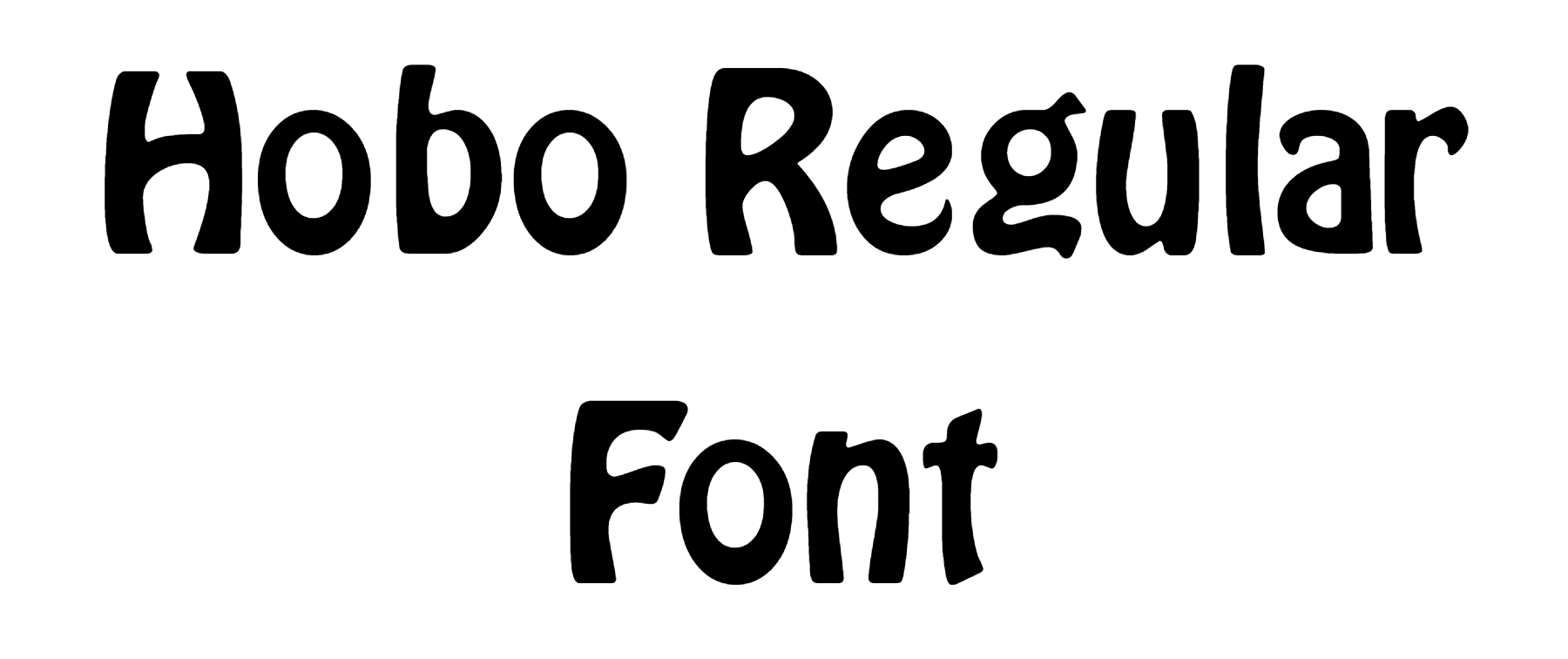
Hobo Regular Font
Hobo Regular
Hobo Regular is a fancy font. Bold and full of character, it's built to stand out rather than blend in. You can download it for free and test it with your own words in the preview above.
What You Can Type With Hobo Regular
You get every letter from A to Z in both cases and all the numbers from 0 to 9, which means Hobo Regular can handle full sentences, dates and prices. Common punctuation such as &, !, ? and @ is included as well. It also has the accented letters you need for Spanish, French, German, Portuguese and Italian.
Where Hobo Regular Works Best
Think of Hobo Regular for posters, logos and eye-catching headlines. Use it for one standout word or headline and let simpler fonts handle the rest.
Does Hobo Regular support accented letters?
Yes. Hobo Regular includes the accented letters needed for Spanish, French, German, Portuguese and Italian, so it works for more than just English.